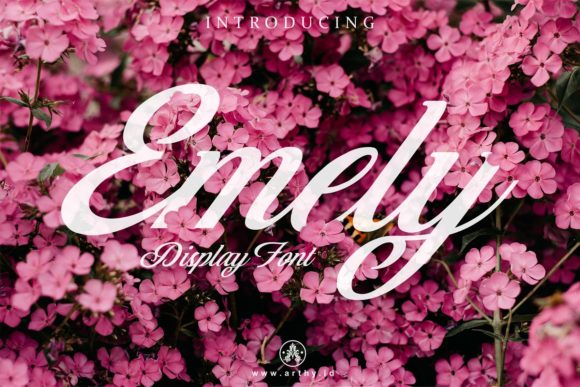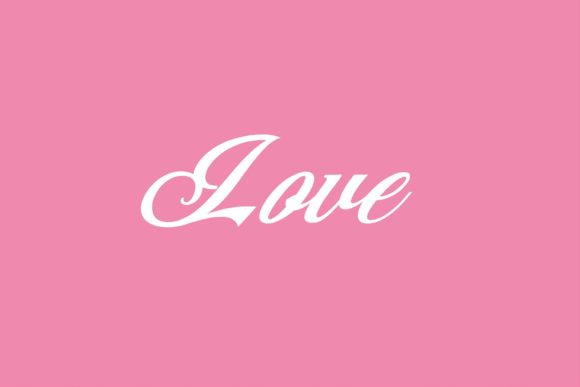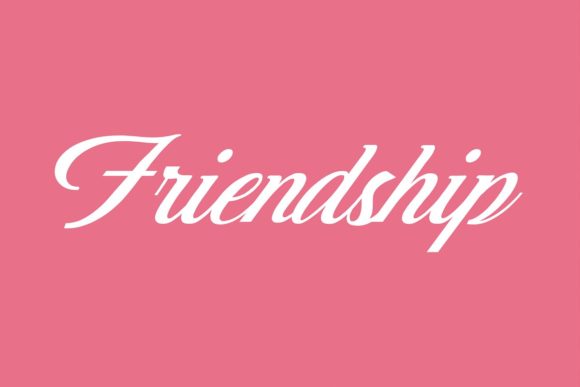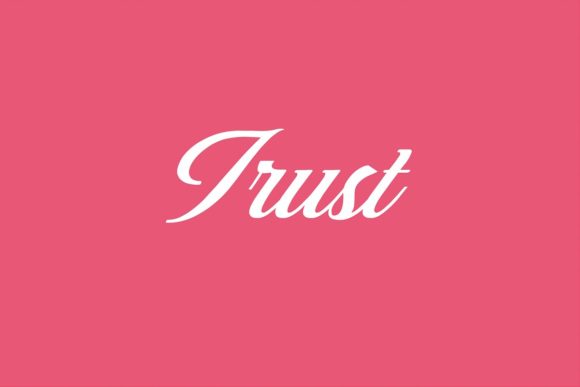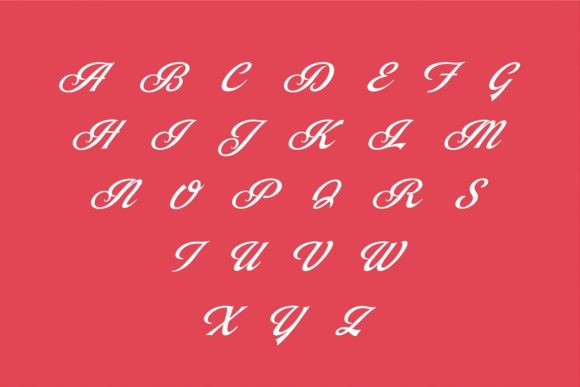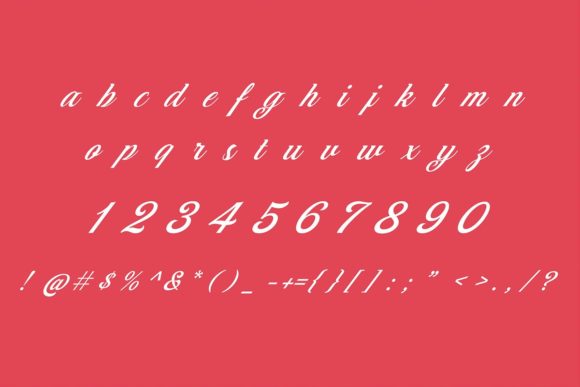
HomeScript FontsEmely Font Script Fonts Emely Font FacebookXPinterestWhatsApp Emely Font Poster 2 Emely Font Poster 3 Emely Font Poster 4 Emely Font Poster 5 Emely Font Poster 6 Emely Font Poster 7 About Emely Font Emely is an incredibly lovely script with a friendly feel. Fall in love with its striking energy. DOWNLOAD NOW People also explored Spooky Webbie – Fun Serif with Web Font Kids Charcoal Black Bella Canvas 3413Y Hello Bird Font Samantha Calligraphy Font Rosnoc Font Glideaway Script Font Madaram Font Misto Font My Dotted Font 344 0 TagsEmely Font Previous articleGrillinea FontNext articleCandy Font LEAVE A REPLY Cancel reply Comment: Please enter your comment! Name:* Please enter your name here Email:* You have entered an incorrect email address! Please enter your email address here Website: Save my name, email, and website in this browser for the next time I comment. Personal Use Free JVNE Smoothdron Personal Use Free Read more about this font Gila Personal Use Free Read more about this font Mixed Artistry Personal Use Free Read more about this font Kaysan Personal Use Free Read more about this font BLOG 5 Fonts That Will Dominate Design Trends in 2026 5 Fonts for 2026 That Will Dominate Design Trends Typography plays a critical role in visual communication, and as we look ahead to 2026, it’s... Top 7 Google Fonts Alternatives for Faster and Privacy-Friendly Web Design (2025) Free Fonts Risk: Why Free Fonts Can Be Dangerous for Designers Transform Your Website: Elevate Your Typography with 7 Best Web Font Generators